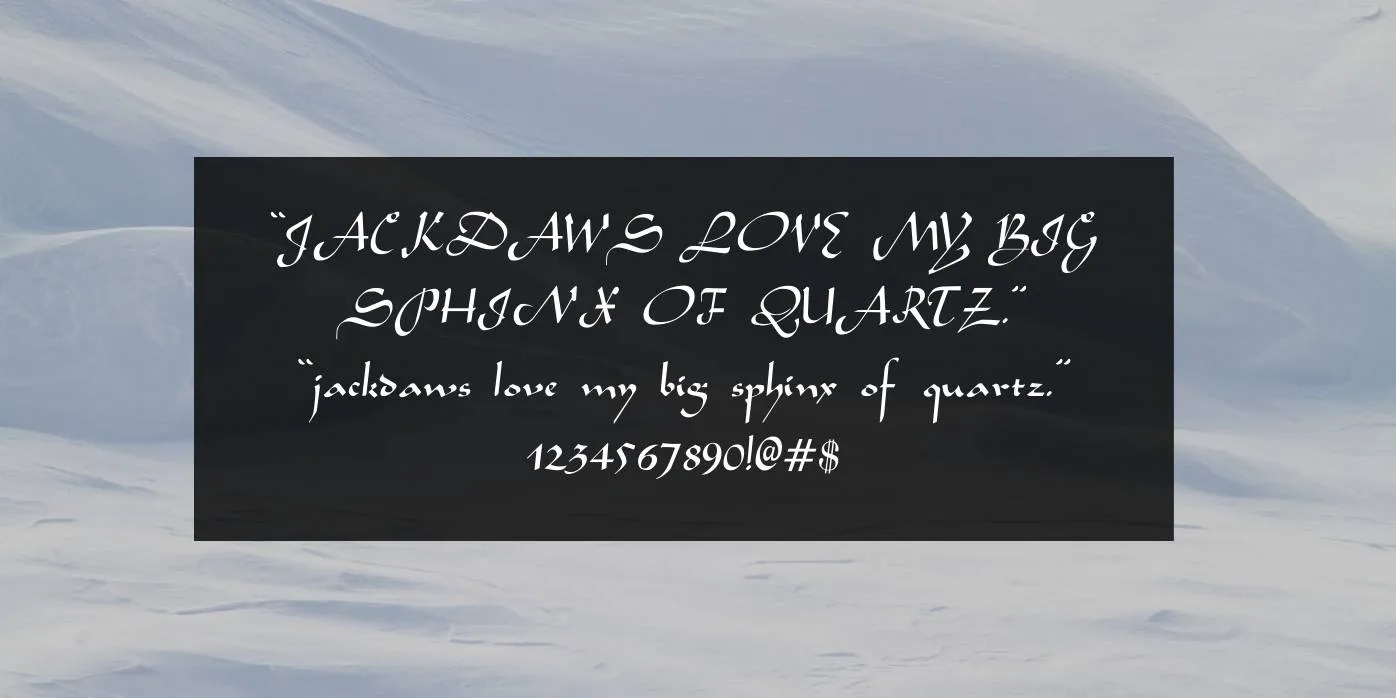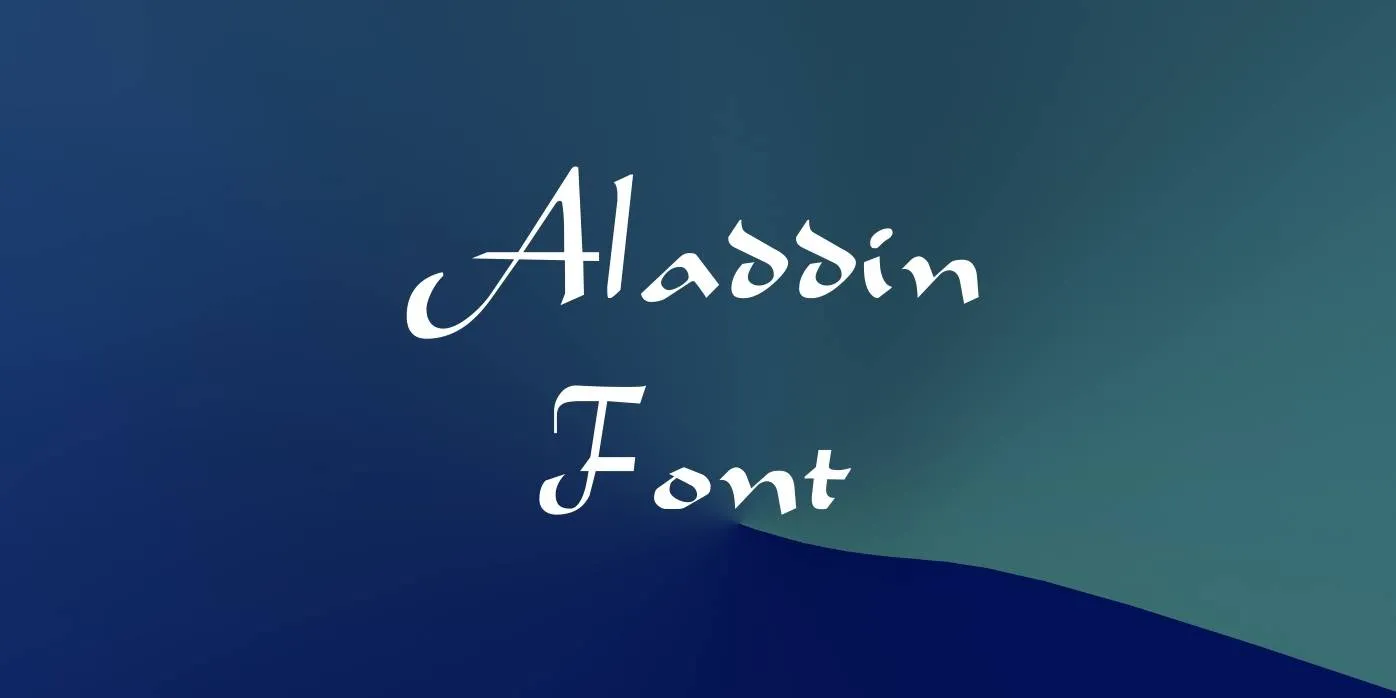
Aladdin Font
Aladdin Font is a famous script typeface that has neat and clean textures. This awesome font consists of two types of fonts: Regular and Bold. Both versions include upper and lowercase letters, numbers, and punctuation marks. It is perfect for branding, logos, invitations, and other creative designs.
It was created by Angel Koziupa. The regular version of Aladdin Font has a light overall weight with subtle angular curves. It looks great for both digital and print design projects. The bolder variant is perfect for headlines and titles.